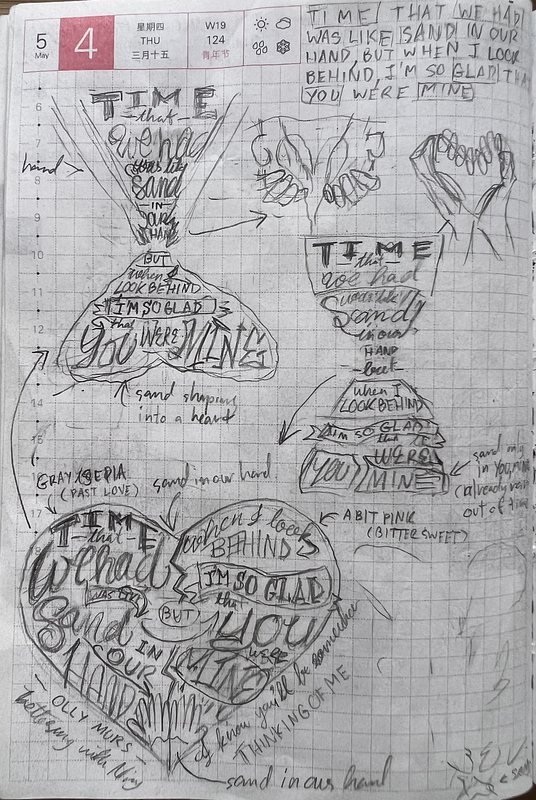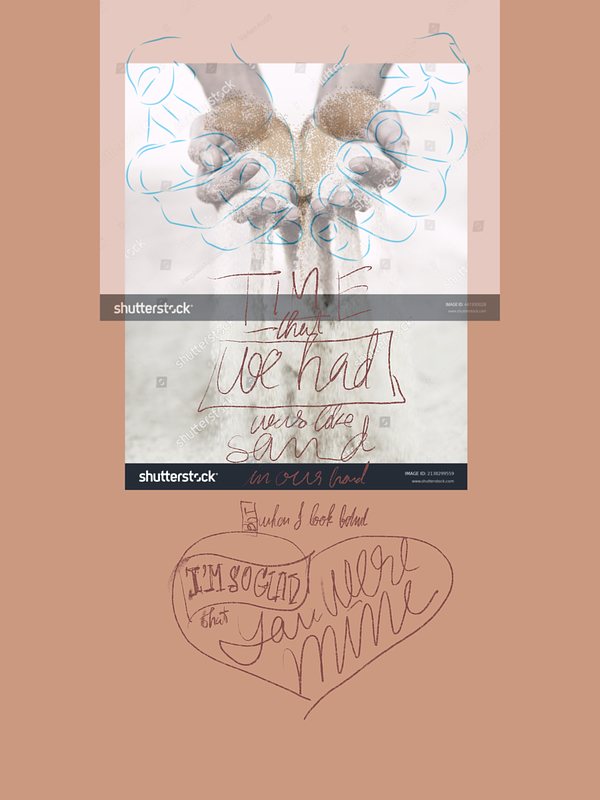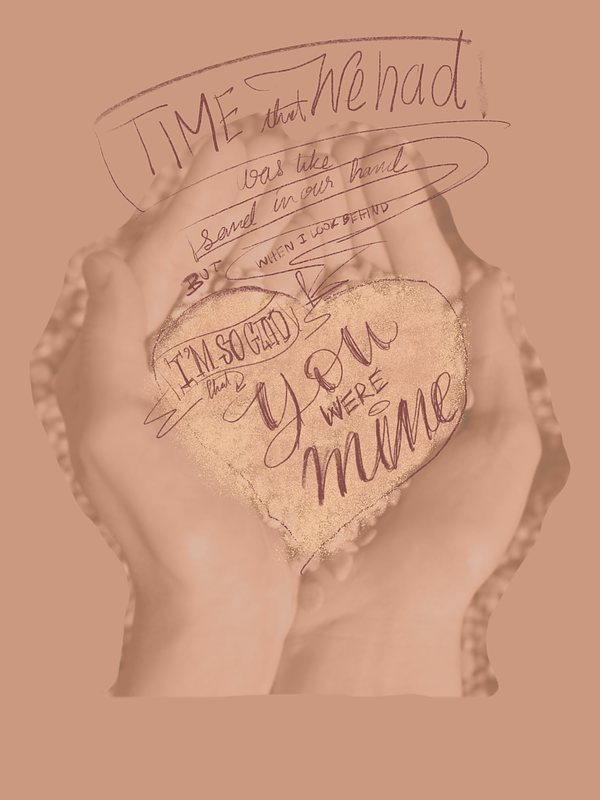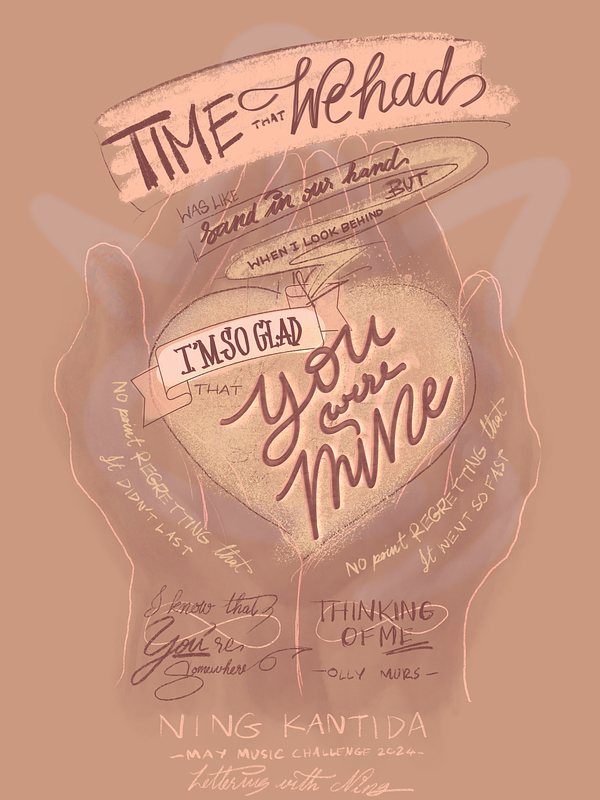
The Lyrics Lettering 00004-Thinking of Me by Olly Murs
This song, "Thinking of Me" by Olly Murs, seems like your typical pop tune at first listen. But, if you pay attention, there are some pretty profound lyrics in there about not dwelling on what's gone but cherishing the good times instead.
It's a reminder that not every love story lasts forever. Some ended too late, some too soon. Sometimes love ends on good terms at the right time and
becomes cherished memories to look back on fondly.
"...No point regretting that it didn't last.
No point regretting that it went so fast
Time that we had was like sand in our hand.
But when I look behind,
I'm so glad that you were mine..."
I had a bit of a creative block when designing for this song. I started off thinking about using an hourglass to symbolize running out of time in love, but it just didn't feel right. So, I shifted gears and decided to focus on the tender moments instead. I emphasized the love part with the shape of a heart instead, which looked alright, but the hierarchy for the words was a mess--also a no-go for me. I tried to draw out some ways to incorporate the image of sand on the hands. However, I still couldn't figure out which direction I should go for.
So, I decided to develop the design on my iPad using real pictures
to see what it would look like for each of them. After a few failed
attempts, I finally landed on the idea of two hands holding sand
carefully in the shape of a heart. It felt like the perfect
representation of love slipping away.
I tried to go with the traditional layout, but then decided against it
and came up with a new design that could convey the message better. I
used the flow of an arrow to resemble a U-turn road so it would share
the same sentiment with the phrase "But when I look behind".
After that, I drew hands, and the idea of filling those hands with
more lyrics came to me. It made everything feel so much more meaningful.
Adding symbolic details, like the hand symbol behind "You were mine" and
infinity signs on the wrists to signify lasting memories, enhanced the
design's meaning even more-- their shared memories will always remain,
though their relationship was not. I loved how it all turned out. I also
added some colors and fine-tuned the details to make it more like a
finished work.
I am amazed by the transformation from confusion to successfully capturing the message essence in my design. All it took was letting the idea sink in and allowing creativity to flow. This design has become my favorite in this challenge as of now. I can't wait to see what other cool designs I can come up with before this month's challenge is over!
P.S. I don't have any brushes for sand, so, please use your imagination for that part, lol.